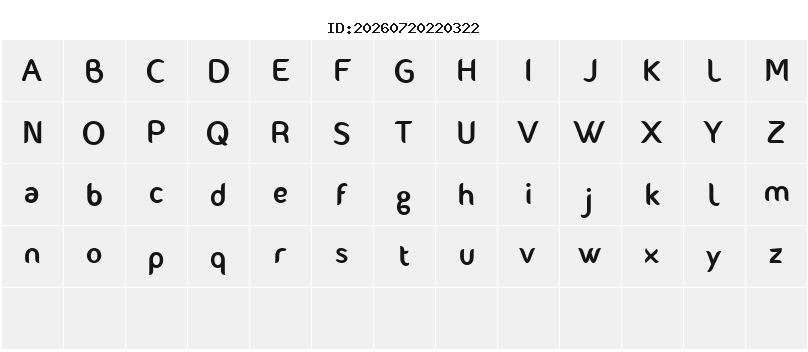
• Font Name: Fontasique
• Font Style: Fontasique
• Full Font Name: Fontasique
• Designer: Beno”t Sjšholm
About Fontasique.ttf
Fontasique.ttf is a modern, elegant sans-serif font designed for ultimate readability and visual harmony. Perfect for branding, headlines, web design, and print materials.